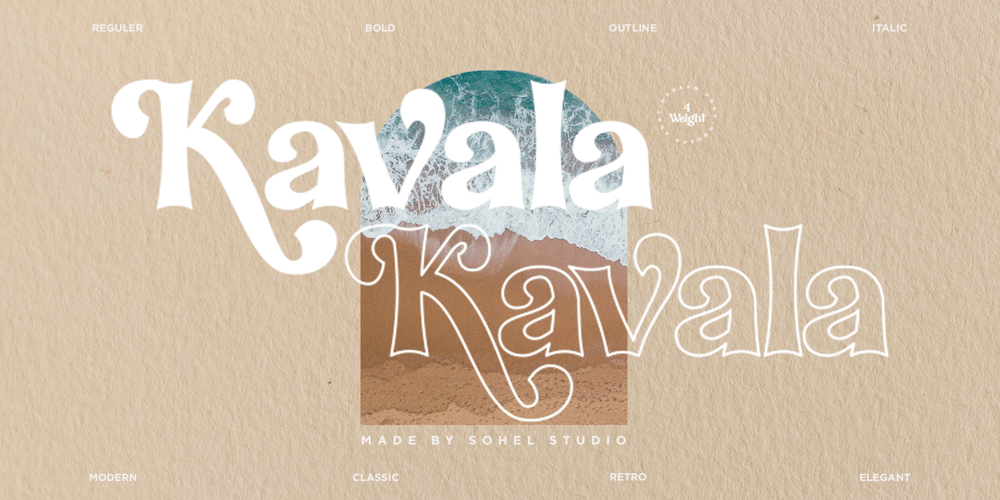
Kavala Font Family was designed by Akhmad Husain Rifa’i and published by Sohel Studio. Kavala contains 4 styles and family package options. Kavala – Modern Serif FontIs a modern serif font it’s a cool modern take on a retro classic, and it’s ready to make a lasting impression on your merchandise, quote designs, header text, logos & branding, advertisements and much more. It’s packed with plenty of alternates and ligatures to really bring it to life, and give you a wide range of customisation options.Features: · 4 Weights font (Regular,Italic,Bold,Outline) · Lowercase and Uppercase · Beautiful Alternates & Ligatures · Numerals & Punctuation · Accented characters · MultilingualHOW TO ACCESS ALTERNATE CHARACTERSOpen glyphs panel:In Adobe Photoshop go to Window – glyphsIn Adobe Illustrator go to Window – Type – glyphs I really hope you’ll get pleasure using Kavala font and it will be perfect addition to your font collection! Contact me with an inbox message If you have any question. Thank you and enjoy!